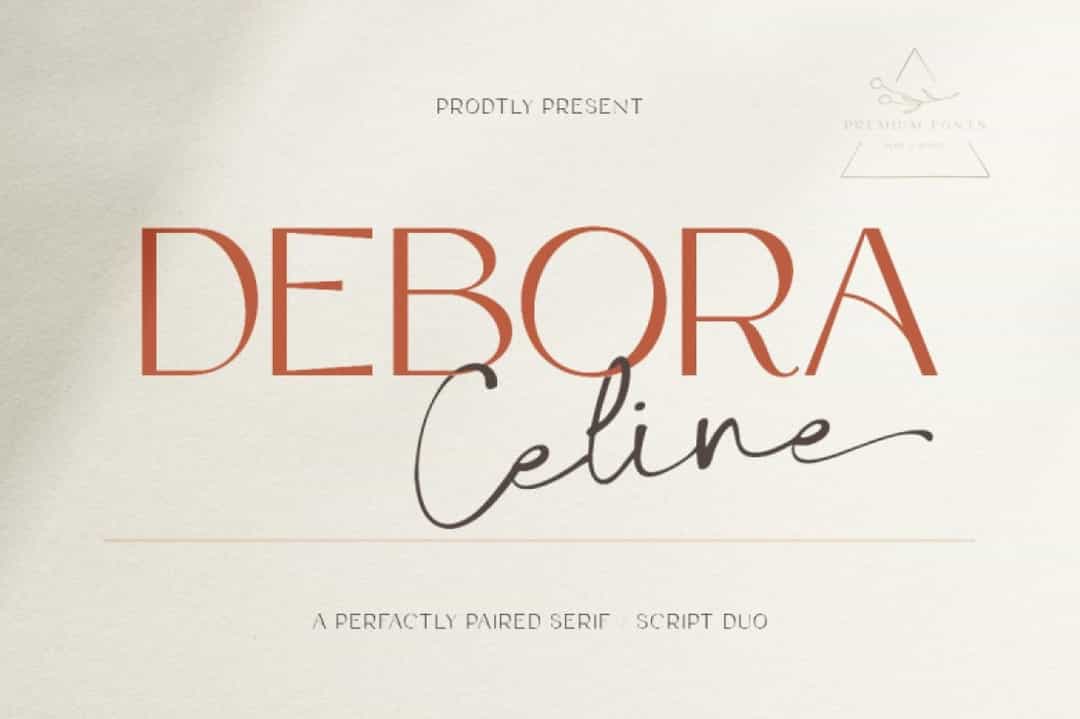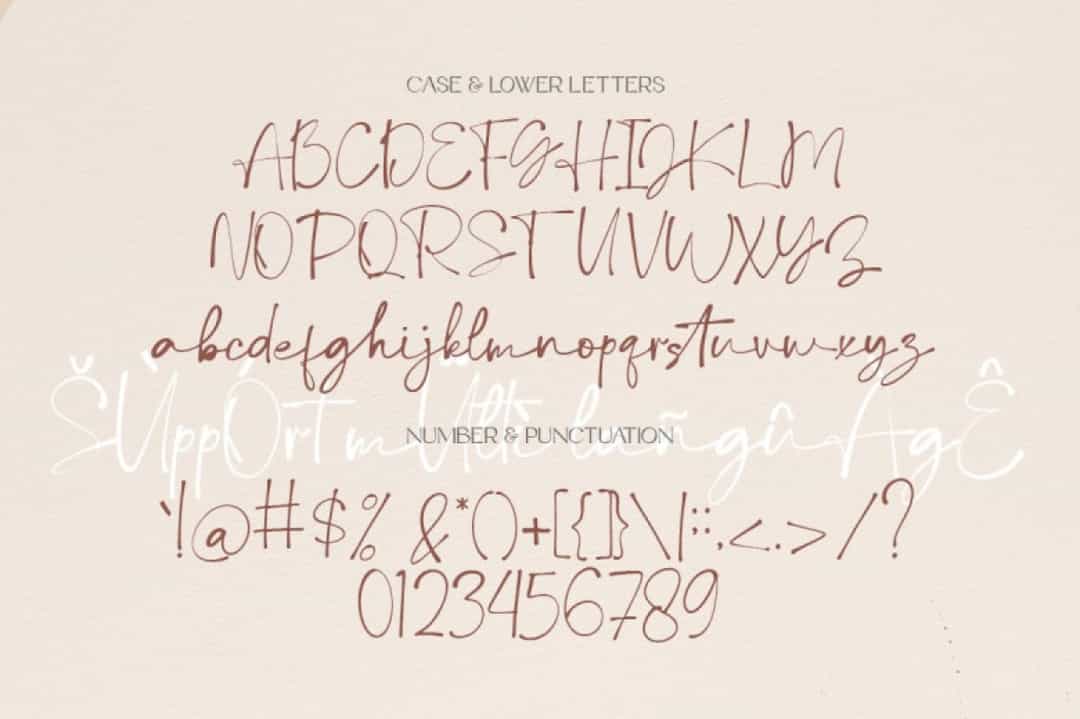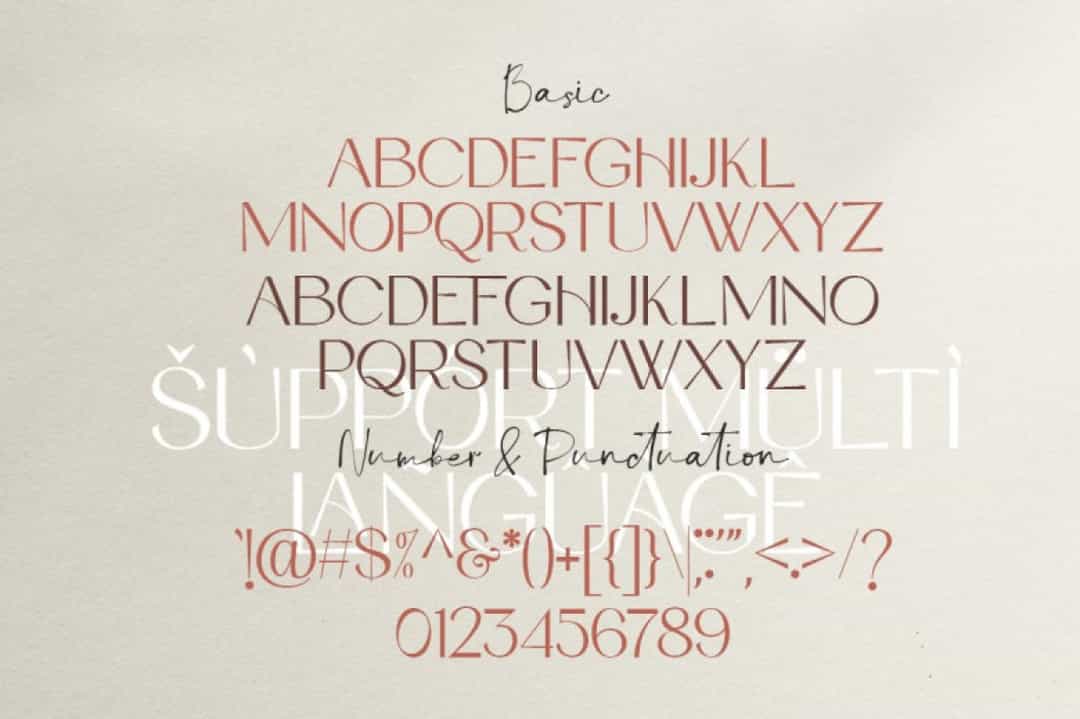
Discover Debora Celina Font, part of the Handwritten Serif collection—a versatile and unique font perfect for adding a personal touch to your projects. Download it for free and enjoy crafting designs with style, from invitations to social media posts. This font is available exclusively for personal use, giving you the freedom to create without limits. Unlock your creativity with Debora Celina Font today!
Debora Celina is an email font made of Duo Script and Serif fonts that is easy to read, unique in appearance and customizable for use across a variety of projects – Valentines cards, Christmas decorations, invitations to weddings, posters advertising branding posts to Facebook profiles as well as magazine covers are just a few examples! Debora Celina will add playful warmth and playful elegance to any project!